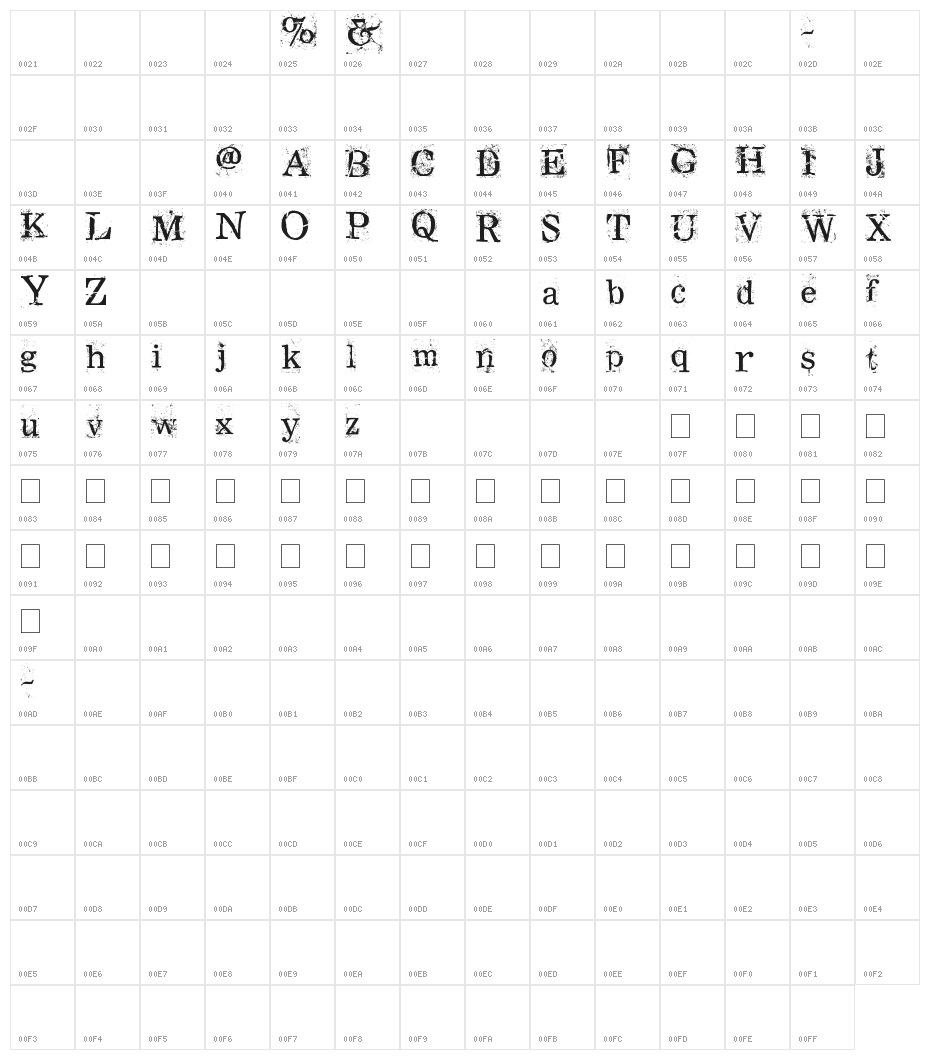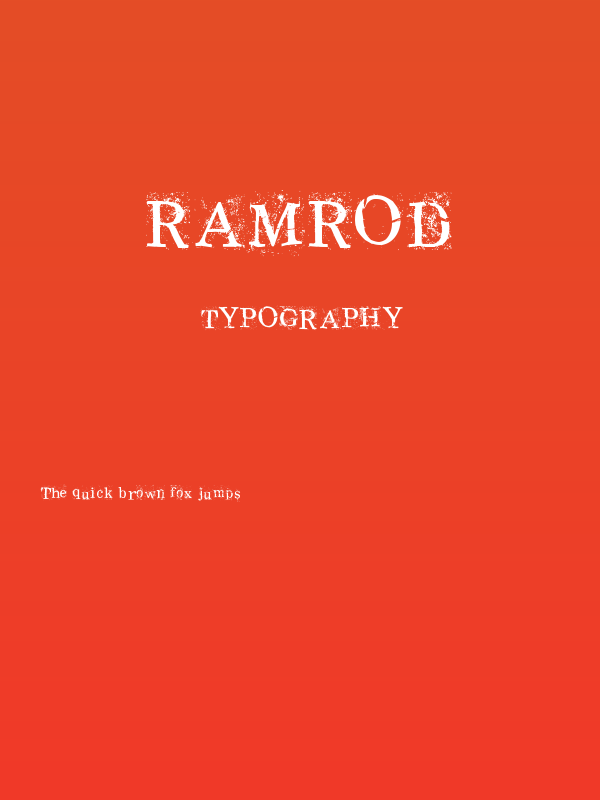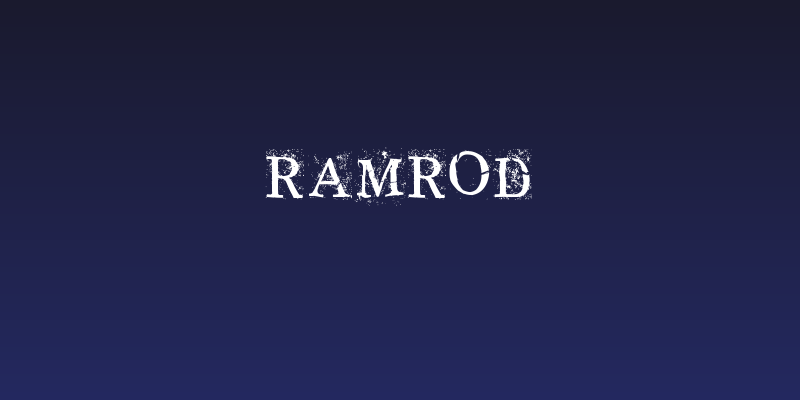
RamRod Font
RamRod Description
This font features a distressed, grunge style with a textured appearance that gives it a worn, vintage feel. The characters are serifed, with varying levels of distress that add a unique, handcrafted look. The uppercase and lowercase letters maintain a consistent style, with the serifs providing a classic touch amidst the rough texture. The numerals and special characters follow the same distressed pattern, ensuring uniformity across all glyphs. This font's rugged and artistic style makes it ideal for projects that require a bold, eye-catching aesthetic.
| Overall Style | Vintage |
| Proposed Projects | Ideal for posters, album covers, vintage-themed designs, and branding that requires a rustic or edgy look. |